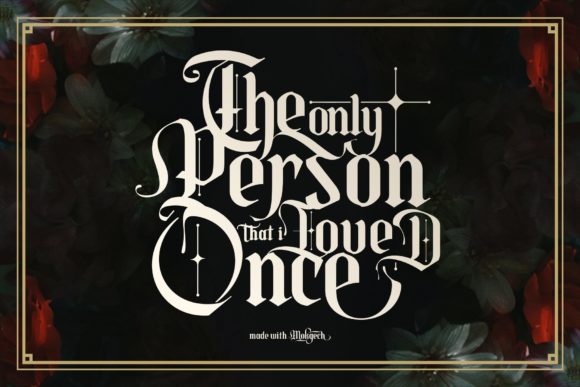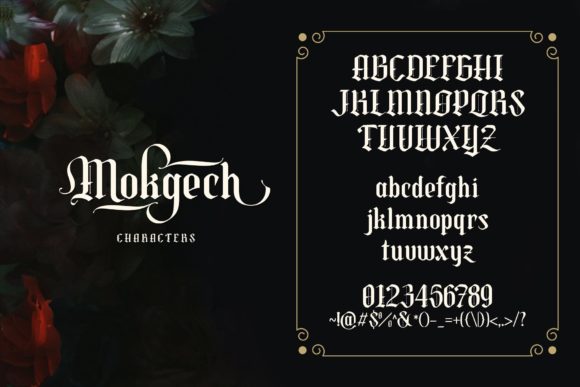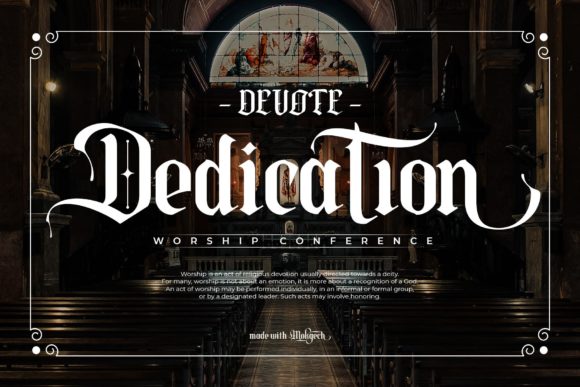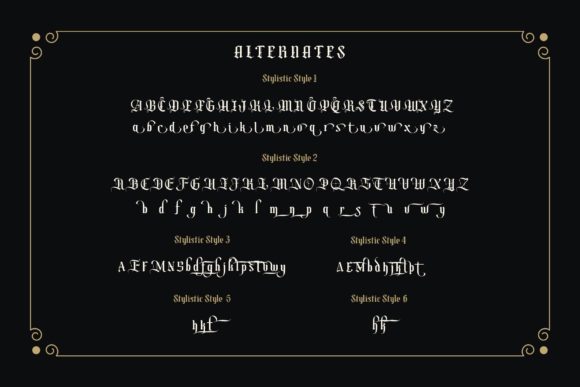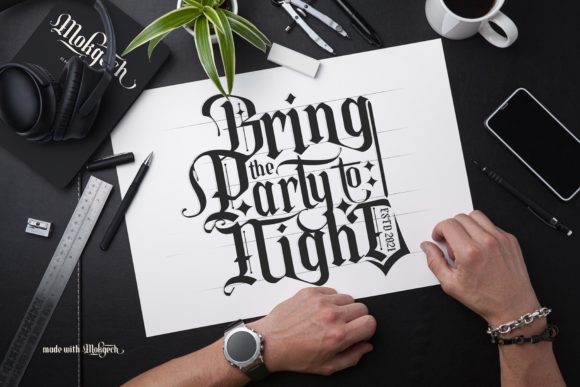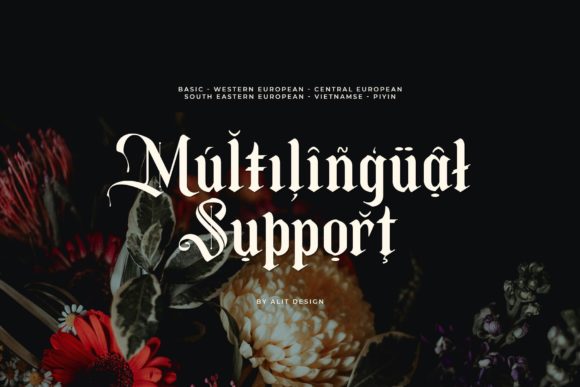
Introduction to Mokgech Font
Mokgech is an elegant, bold and distinct blackletter font.
This font is PUA encoded which means you can access all of the amazing glyphs and ligatures with ease .
Key Features of Mokgech Font